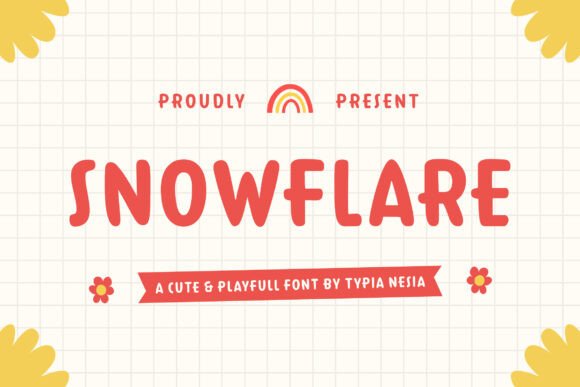
Make Your Brand Shine with Snowflake
As a small business owner, I’ve always believed that the little details matter. That’s why when I started updating my bakery’s packaging, I knew I needed more than just a fresh logo—I needed a font that could bring personality and charm to every box, label, and card.
That’s when I discovered Snowflare. It’s not just a font; it’s a playful companion that adds a touch of warmth and creativity to any design. Its soft curves and friendly shapes make it perfect for businesses looking to stand out without being too serious.
What Makes Snowflare Special
Snowflare is a script font with a distinct personality. It feels like a handwritten note from a friend—charming, approachable, and full of life. The font has a light, flowing style that makes it ideal for headlines, logos, and decorative text. It doesn’t overpower other elements, which makes it great for pairing with simpler fonts in a design.
Whether you’re designing a label for a candle, a menu for a café, or a social media graphic for a beauty brand, Snowflare brings a sense of fun and authenticity to your work. It’s not just about looking good—it’s about feeling good.
How I Used Snowflare in My Bakery
My bakery had a classic logo, but I wanted something that felt more personal and inviting. I tried Snowflare on my packaging and immediately loved how it made the boxes feel more special. It added a sense of whimsy that matched the cozy vibe of my shop.
I also used it on my thank-you cards and seasonal promotions. The font gave each piece a unique touch that customers noticed. People started commenting on how “sweet” the designs looked, which helped build a stronger connection with my brand.
Where Snowflare Works Best
Snowflare shines in display text, logos, and short phrases. It’s not meant for long paragraphs, but when used as a headline or accent, it can elevate your entire look. For example, I used it on my product labels, where it added a soft, elegant contrast to the clean sans serif font I paired it with.
It’s also great for digital ads, social media banners, and website headers. The font catches the eye without being overwhelming, making it perfect for attention-grabbing visuals that still feel friendly and approachable.
Typography Matters for First Impressions
When customers see your brand, they form an immediate impression. A well-chosen font can make the difference between a design that feels professional and one that feels rushed or unpolished. Snowflare helps create a cohesive visual identity that feels consistent across all materials.
For instance, I used it on my café’s menu. The font gave the menu a more polished look while still keeping the casual, welcoming feel of the space. It helped reinforce the brand’s personality and made the menu easier to read at a glance.
Pairing Snowflare with Other Fonts
One of the best things about Snowflare is how well it pairs with other fonts. I often use it alongside a clean sans serif like Helvetica or a classic serif like Georgia. This creates a balanced look that’s both modern and timeless.
If you’re working on a website or a print project, consider using Snowflare for headings and a simpler font for body text. This keeps your design readable while still allowing the script font to shine where it matters most.
Practical Tips for Using Snowflare
When using Snowflare on small labels or mobile screens, keep your text short and focused. The font is beautiful, but it can become hard to read if overused. For printed packaging, make sure the font size is large enough to be legible at a distance.
On social media thumbnails, Snowflare works well as a highlight or accent. It draws attention without distracting from the main message. For product mockups, it adds a handmade, personalized feel that stands out from generic designs.
Check the Font Details Before You Use It
Before finalizing any design, make sure to check what styles, file formats, and language support are included with Snowflare. Some fonts have different weights or ligatures that can affect how they look in your project.
Also, if you’re using Snowflare for commercial purposes—like packaging, merchandise, or client work—make sure you have the proper licensing. This ensures you can use the font safely and without legal issues.
Bring More Personality to Your Brand
Snowflare isn’t just a font—it’s a tool for expressing your brand’s voice. Whether you’re a baker, a candle seller, or a boutique owner, this font can help you create designs that feel more authentic and memorable.
By choosing the right typeface, you’re not just improving your visuals—you’re building trust, recognition, and a stronger connection with your audience. And that’s something every small business owner can appreciate.